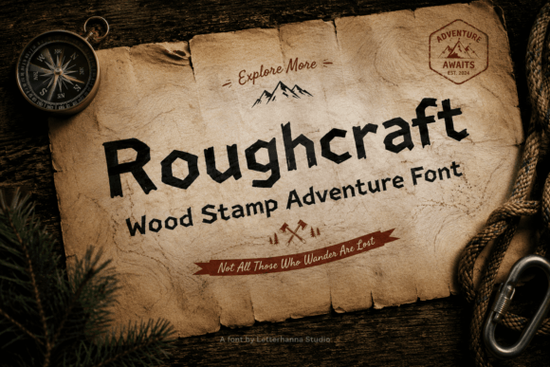
Designers, crafters, and small business owners looking for a unique typeface that stands out from the crowd might find the Roughcraft Font to be exactly what they need. This bold display font is perfect for those who want to add a touch of authenticity and character to their projects. Whether you're working on a logo, packaging, or social media graphics, Roughcraft offers a distinctive look that feels handcrafted and real.
The Roughcraft Font was created with a specific audience in mind those who value imperfection and raw energy. It’s designed to feel like it was carved by hand, with thick strokes and natural irregularities that give each letter a sense of history. The uppercase letters are strong and sturdy, making them ideal for headings and titles that need to grab attention without being too loud.
If you're working with a clean serif or minimal sans-serif font for body text, the Roughcraft Font can serve as a great contrast. Its rough texture and rugged appearance make it stand out while still complementing more refined typefaces. This makes it a versatile choice for a wide range of design projects, from print materials to digital graphics.
What Makes Roughcraft Stand Out?
Roughcraft isn’t just another font it’s a statement. Unlike many display fonts that aim for perfection, this one embraces the beauty of imperfection. The design feels tactile, as if you could run your fingers across the screen and feel the grain of the letters. This makes it especially appealing for brands that want to convey a sense of craftsmanship and authenticity.
It works well in a variety of contexts. A craft beer brewer might use it for labels, while an independent streetwear label could use it for logos. It also fits naturally on hiking trail posters or vintage record covers. The versatility of the font means it can adapt to different styles and industries without losing its identity.
Who Can Benefit from Using Roughcraft?
Designers who are looking for something different from standard corporate fonts will find the Roughcraft Font to be a valuable addition to their toolkit. It’s also useful for print-on-demand sellers who want to create eye-catching products that stand out in a crowded market. Small businesses that want to express their unique brand personality can benefit from using this font in their marketing materials.
Creative hobbyists who enjoy experimenting with typography will appreciate the way Roughcraft adds a sense of depth and texture to their work. Its bold and rugged style can help bring a project to life in a way that more polished fonts might not achieve.
How to Use Roughcraft Effectively
One of the best ways to use the Roughcraft Font is to pair it with simpler typefaces. For example, combining it with a clean serif or minimal sans-serif font can create a strong visual contrast that draws attention to key elements. This approach helps maintain readability while allowing the Roughcraft Font to shine as a focal point.
When using the font in digital designs, consider how it will look at different sizes. Its rough texture works well at larger sizes, such as for headlines or banners, but may become less legible when used in smaller text. Always test the font in different contexts to ensure it meets your design goals.
Before finalizing your design, take a moment to review how the font looks in different formats and sizes. Make sure it aligns with your overall design vision and effectively communicates the message you want to convey. With the right approach, the Roughcraft Font can become a powerful tool in your design arsenal.